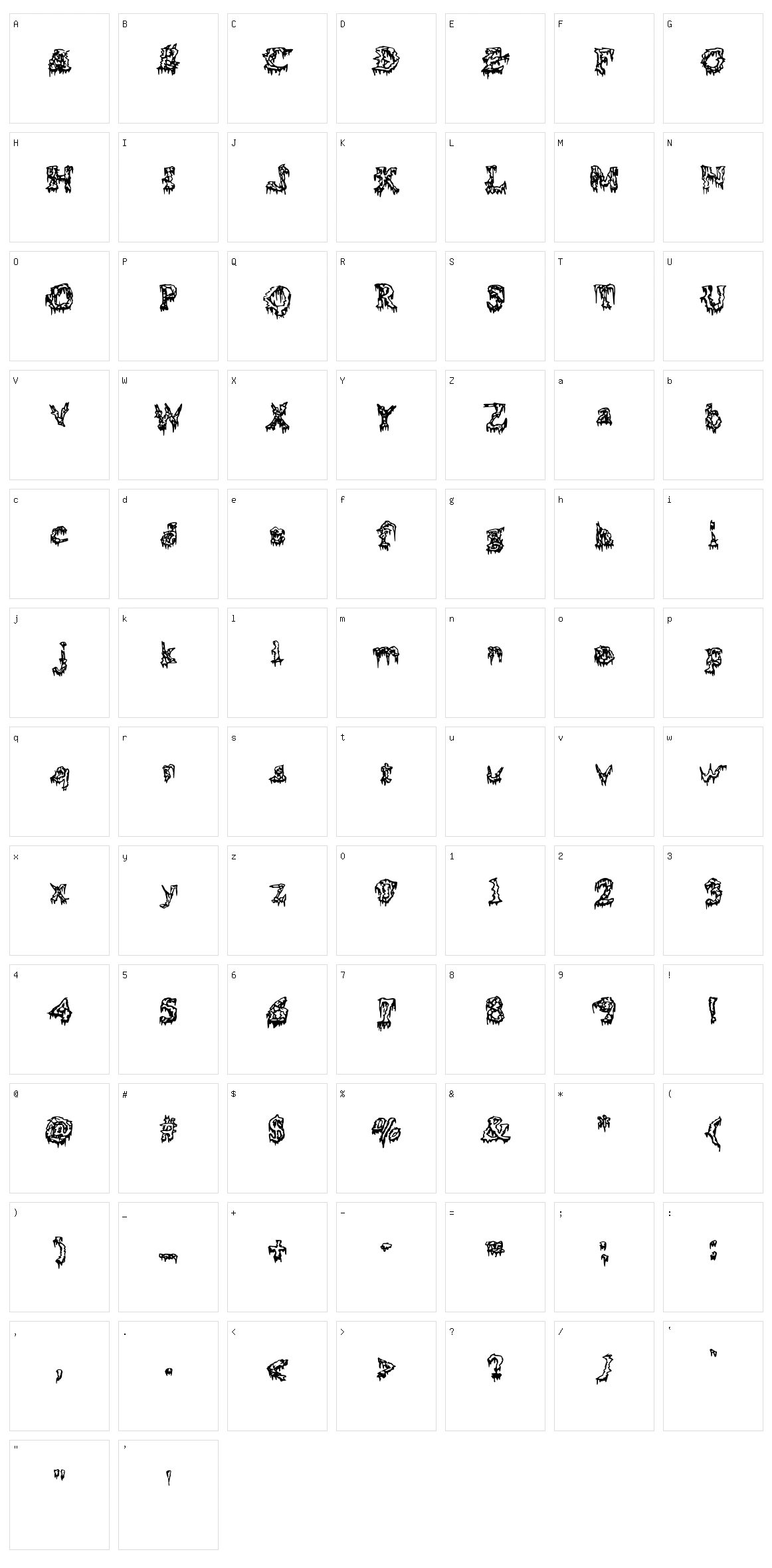
The free font Squelettics is carefully designed by =spark_01=, showcasing a thoughtful balance of creativity and usability and falls under the Horror font style. When you download the ZIP file, it contains only 78.73 KB of font files, making it lightweight and quick to download. Please review the license details below to understand permitted usage and distribution rights. If license information is not available, we recommend using this font for personal projects only or contacting the author directly for commercial usage permissions.